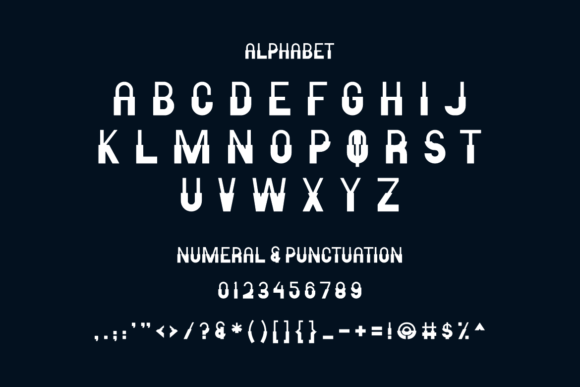
Gerah Font: Elevate Your Designs with a Cool and Unique Display Font
Are you tired of using the same old fonts in your designs? Look no further than Gerah Font, a cool and unique display font that’s sure to take your projects to the next level. With its distinctive style and versatility, Gerah Font is the perfect addition to any designer’s toolkit.
What is Gerah Font?
Gerah Font is a modern display font that’s designed to make a statement. Its unique and cool style sets it apart from more traditional fonts, making it perfect for designers who want to add a touch of personality to their work. Whether you’re creating a logo, poster, or social media graphic, Gerah Font is sure to turn heads.
Key Features of Gerah Font
- Unique and Cool Style: Gerah Font has a distinctive style that’s sure to set your designs apart from the crowd.
- Versatile: Whether you’re creating a logo, poster, or social media graphic, Gerah Font is versatile enough to fit any design need.
- Easy to Read: Despite its unique style, Gerah Font is still easy to read, making it perfect for use in a variety of design applications.
- High-Quality: Gerah Font is a high-quality font that’s designed to produce crisp, clear results in any design application.
Why Use Gerah Font?
So why should you use Gerah Font in your designs? For starters, it’s a great way to add some personality to your work. In a world where so many designs look the same, Gerah Font is a breath of fresh air. Its unique style is sure to grab attention and make your designs stand out.
Another reason to use Gerah Font is its versatility. Whether you’re creating a logo, poster, or social media graphic, Gerah Font is versatile enough to fit any design need. And because it’s easy to read, you can use it for both headings and body text.
Once you’ve selected Gerah Font, you can customize it to fit your design needs. Experiment with different colors, sizes, and styles to create a look that’s uniquely yours.
Tips for Getting the Most Out of Gerah Font
- Experiment with Different Sizes: Gerah Font looks great in a variety of sizes, from small headings to large display text.
- Play with Color: Gerah Font comes in a range of colors, so don’t be afraid to experiment and find the perfect hue for your design.
- Pair it with Other Fonts: Gerah Font pairs well with a variety of other fonts, so try combining it with some of your favorite fonts to create a unique look.
Gerah is a cool and unique display font. Add it confidently to your projects and you will love the results!